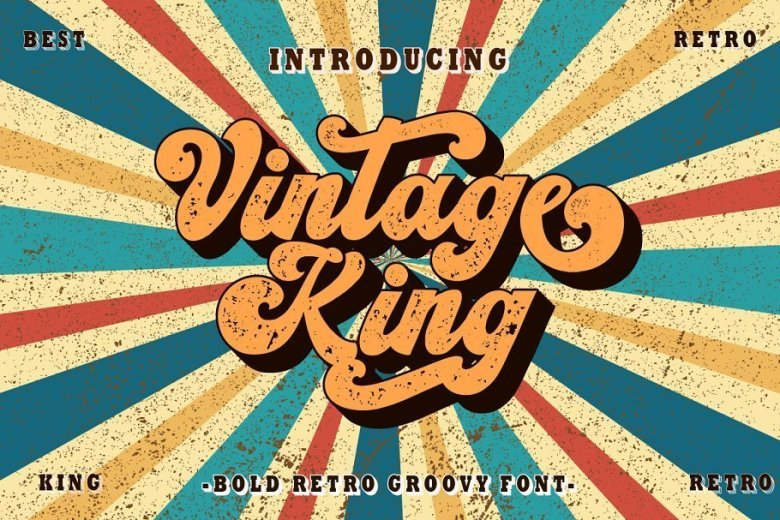
Vintage King Font
Introducing Vintage King Font. A retro bold script style font, come with clean and rough font version. Inspired from retro typography and lettering in the 70’s and 80’s combine with bold typography style. Vintage King is perfect for vintage and retro design, badge, logos, t-shirt, poster, branding, packaging, signage, book cover and so much more!